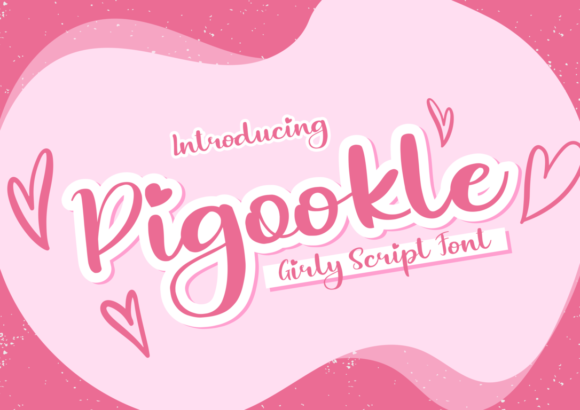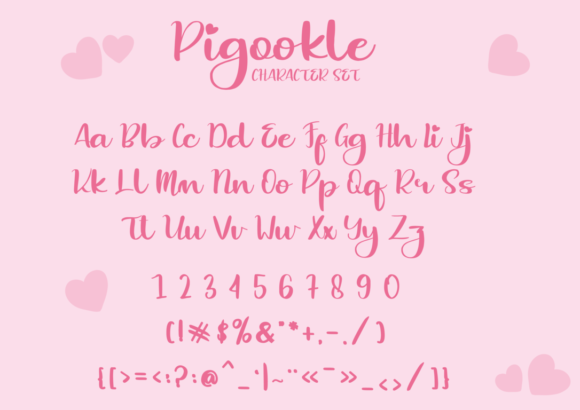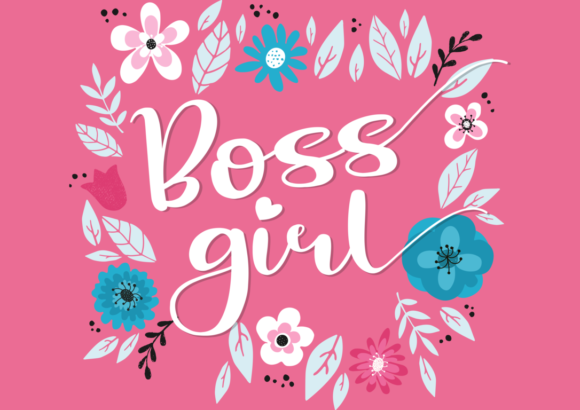
About Pigookle Font
Pigookle is a cute, pretty and joyful handwritten font. This font is PUA encoded which means you can access all of the glyphs and swashes with ease!